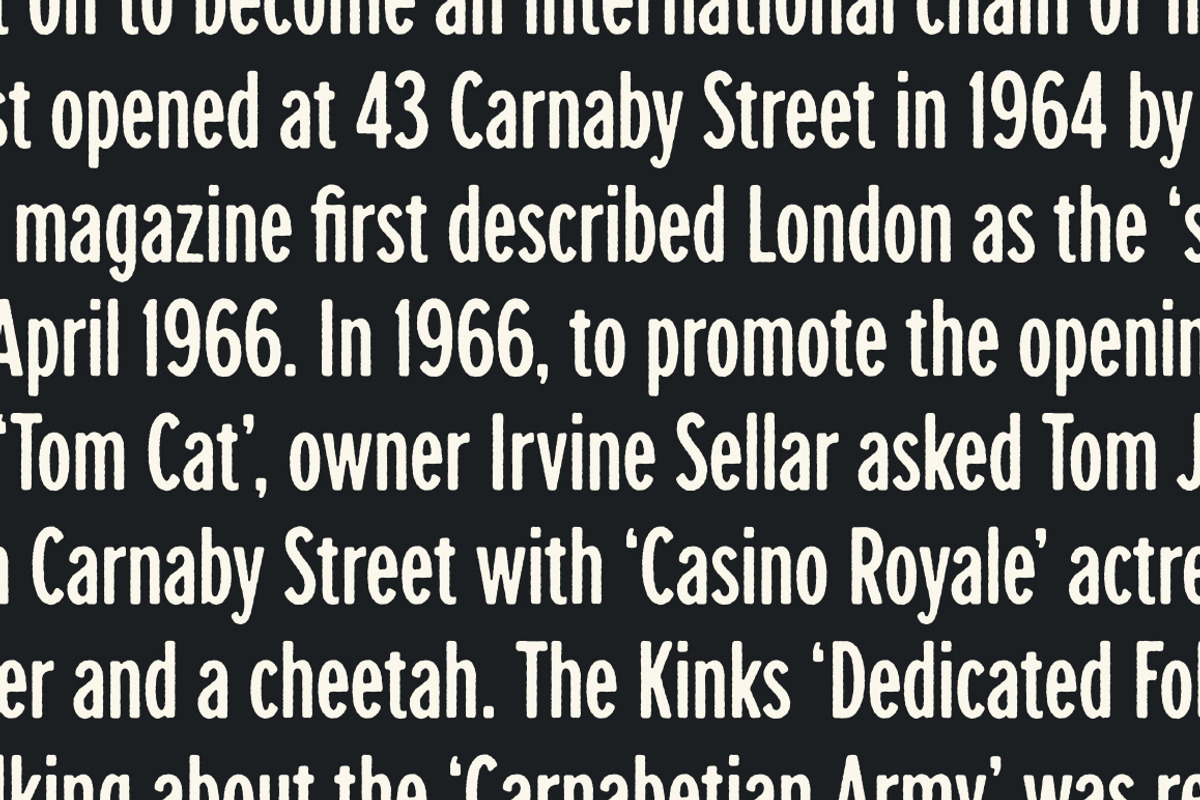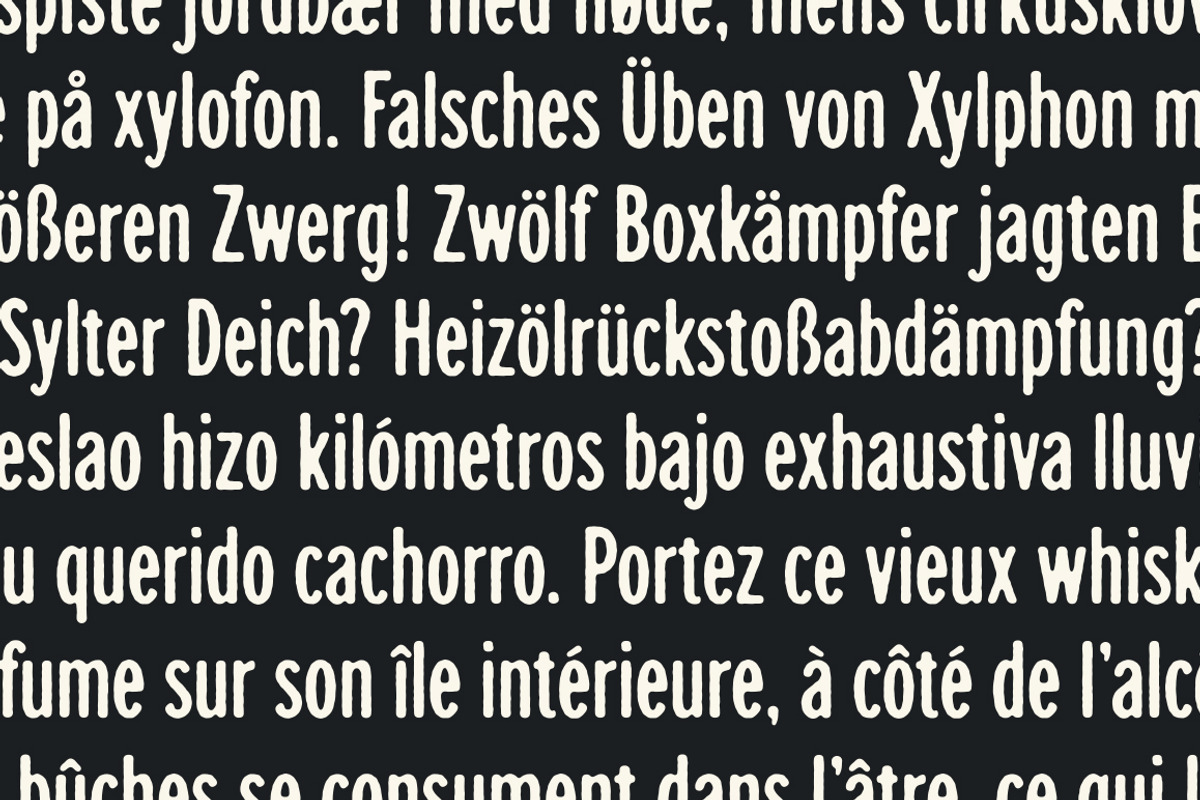
Carnaby Street
Inspired by the mod movement of the late 50s and 60s in England that made Carnaby Street one of the most popular hangouts in London.
Carnaby Street is a modern take on a classic condensed typographic style. It has 294 glyphs, supports multiple foreign languages, and includes over 30 alternate characters and ligatures. Purchase comes in three styles: Clean, Rough, and Blowout. The three styles work well independently - however, the two roughened versions were designed to be used at different scales within the same design, to help make the overall texture effect feel consistent throughout the layout (see image 7).